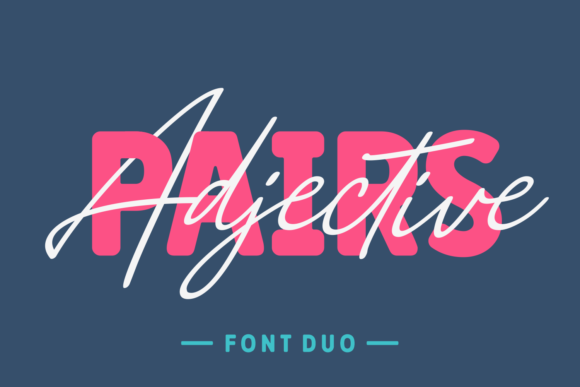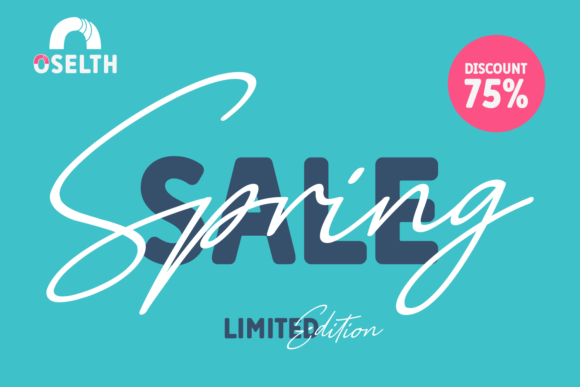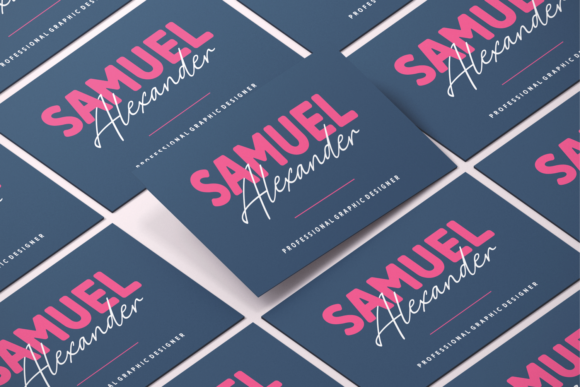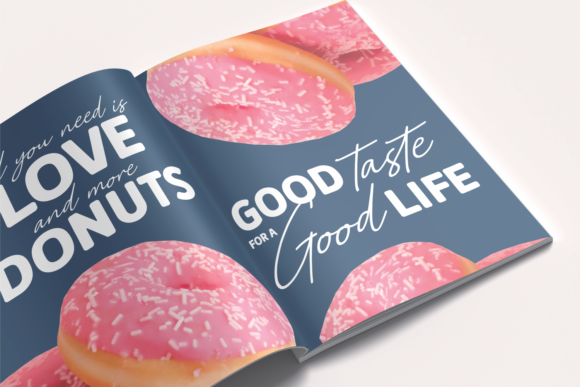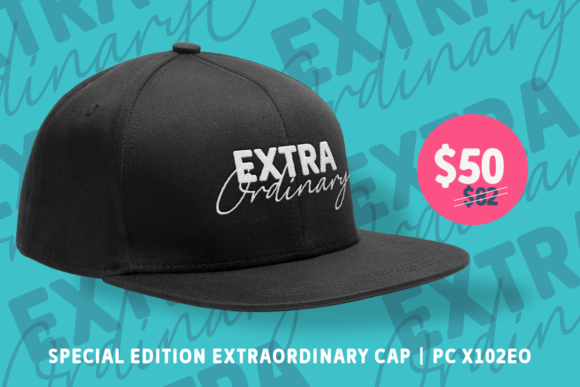
Adjective Pairs Font
Adjective Pairs is a lovely, versatile duo font (script and sans). It features a variety of elements, thin and thick letters as well as an outstanding style. Add it confidently to your projects, and you won’t be disappointed.